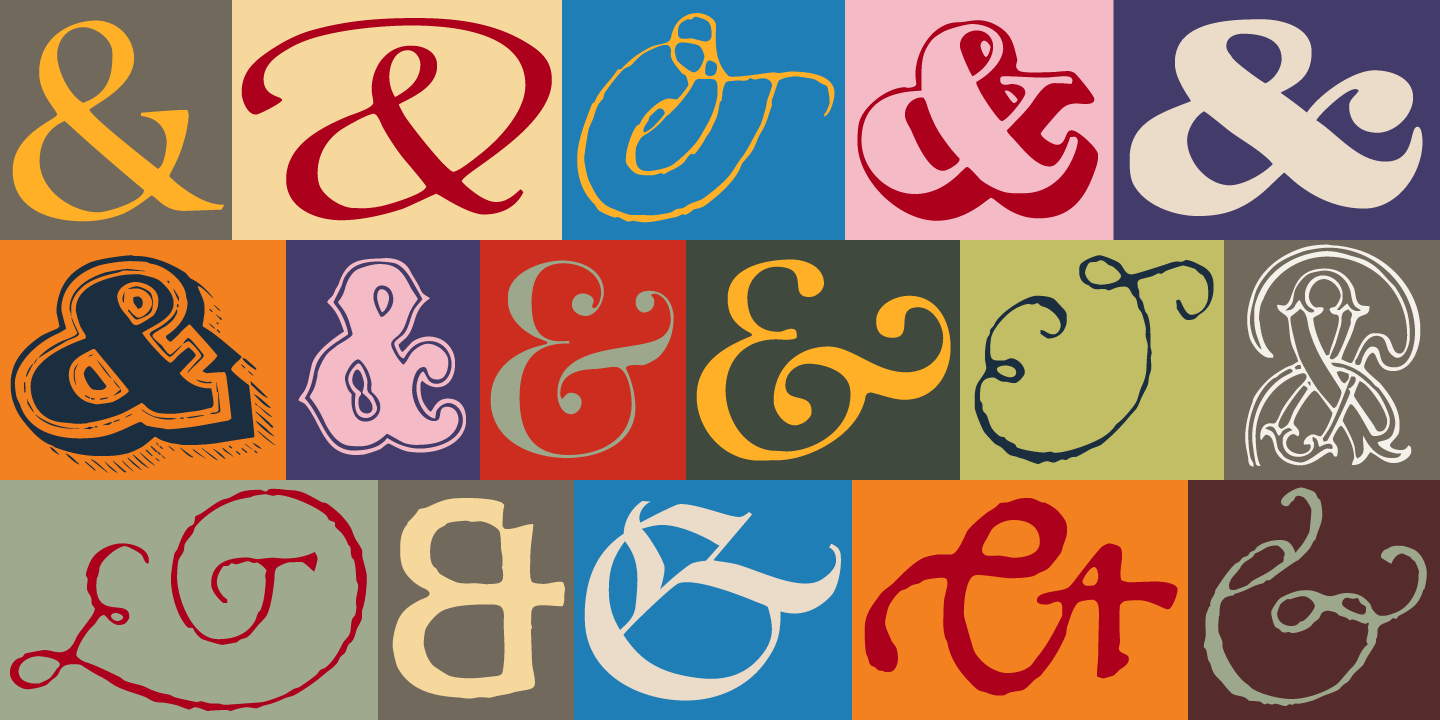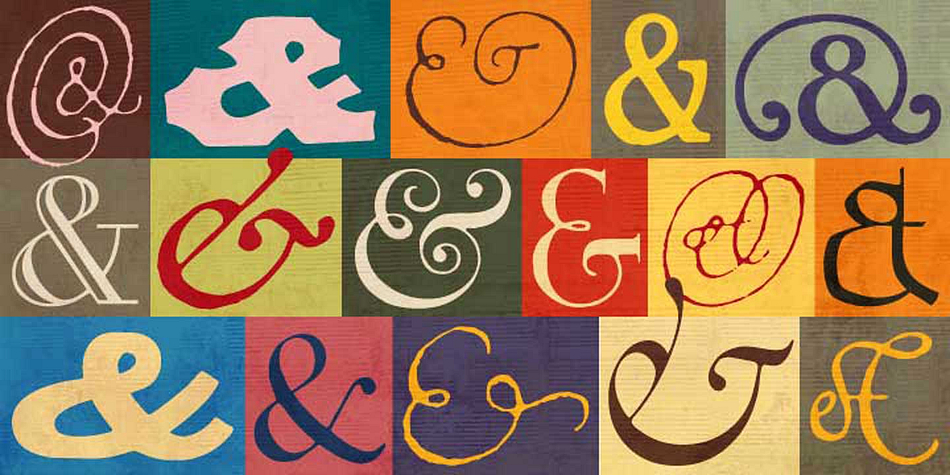
Ampersands is a dingbat and novelty font family. This typeface has two styles and was published by CastleType.
Ampersands One and Ampersands Two each contains 101 decorative ampersands. These fonts include ampersands from various display fonts in the CastleType Library as well as antique, ornate and calligraphic ampersands.